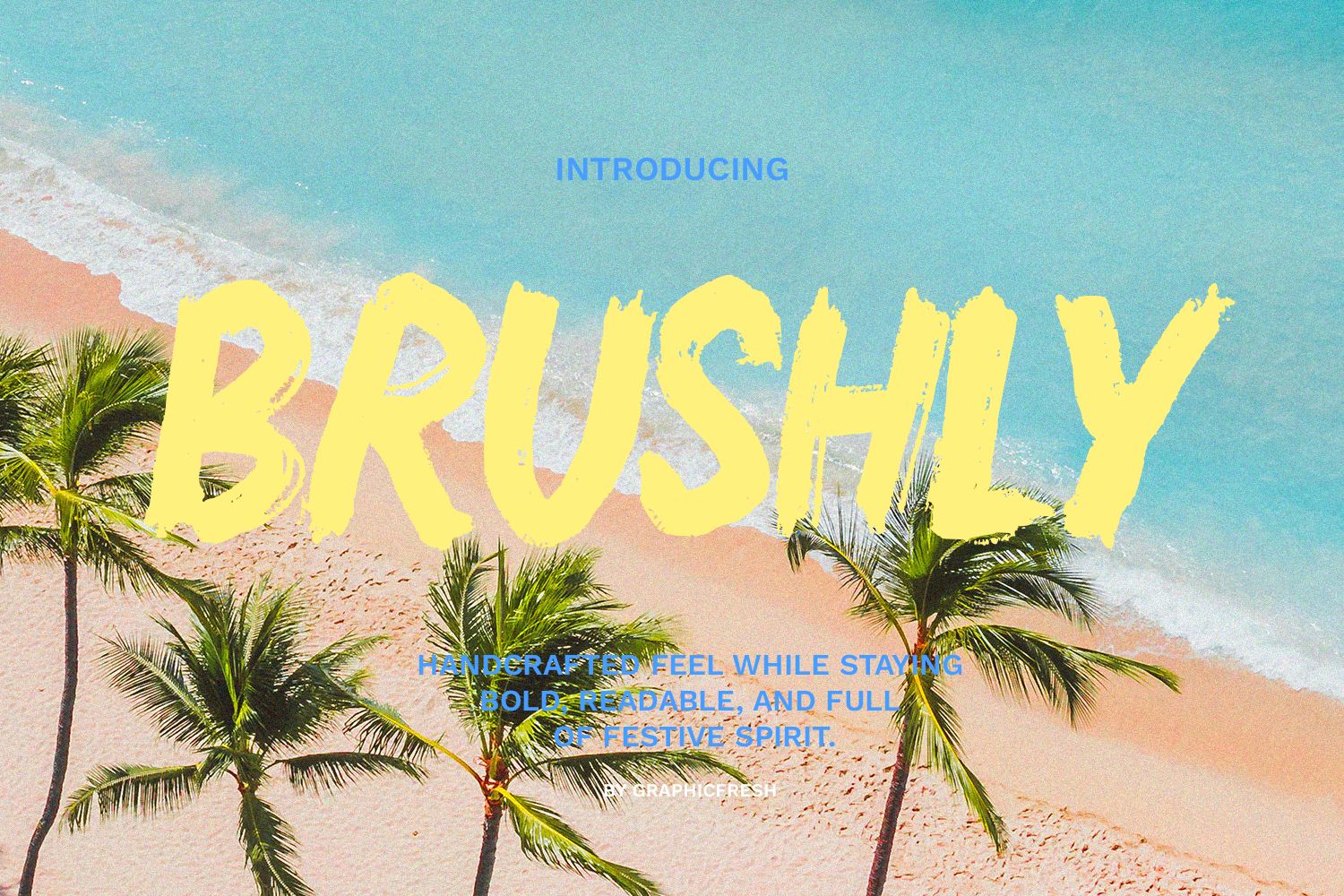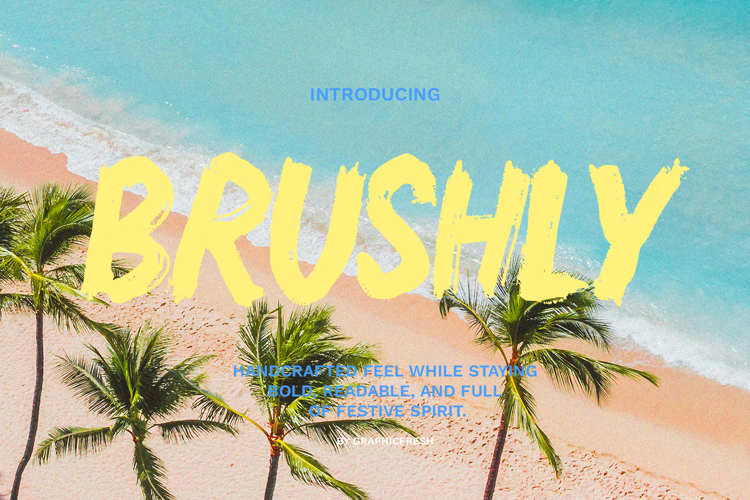
Brushly - Handcrafted Brush Font
Brushly is a festive holiday brush font designed to capture the warmth, joy, and excitement of seasonal celebrations. With its lively hand-painted strokes and playful texture, Brushly brings a cheerful and expressive character to your designs. Perfect for holiday branding, greeting cards, invitations, social media graphics, event promotions, and seasonal headlines. Brushly delivers a warm handcrafted feel while staying bold, readable, and full of festive spirit.